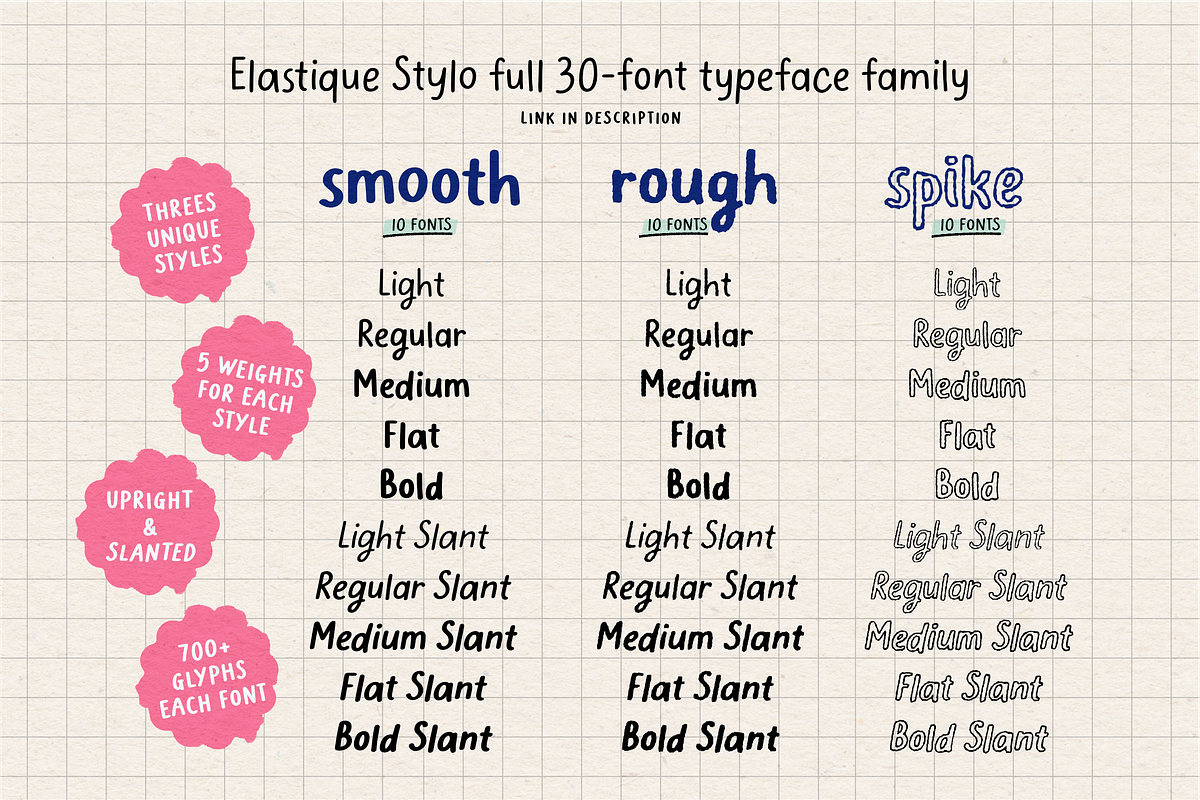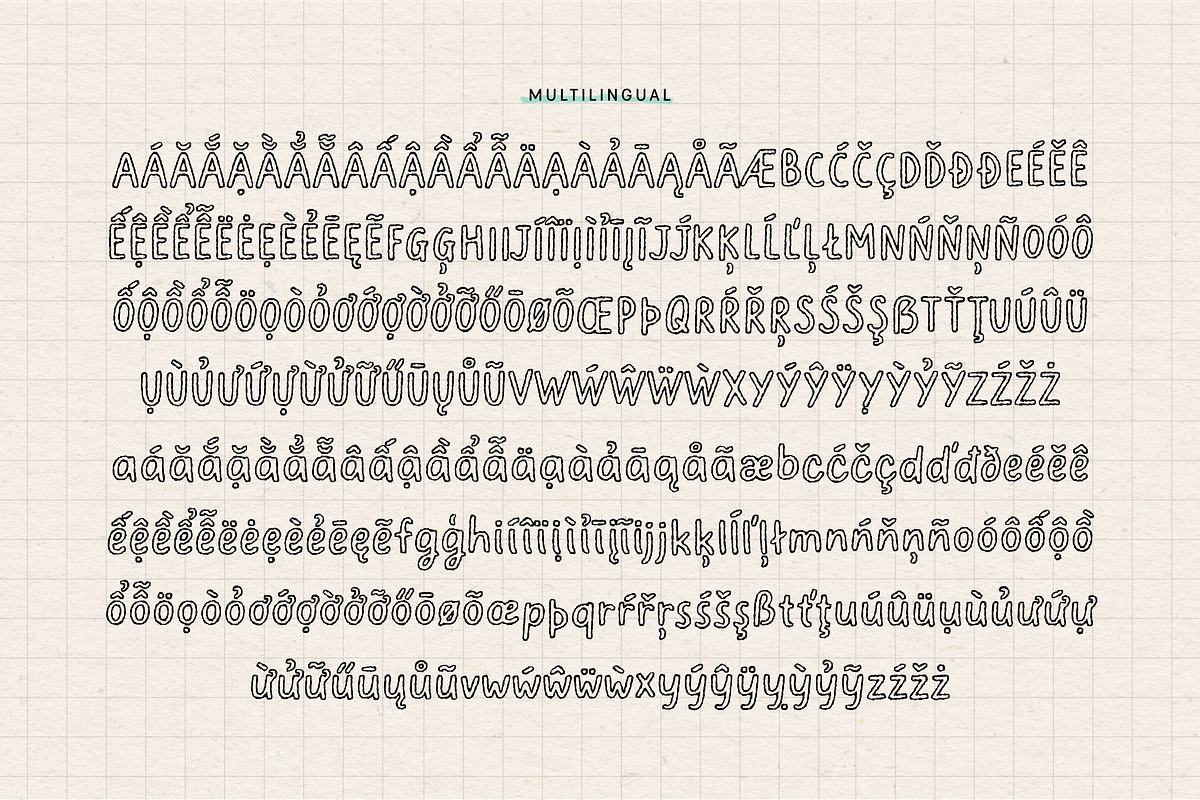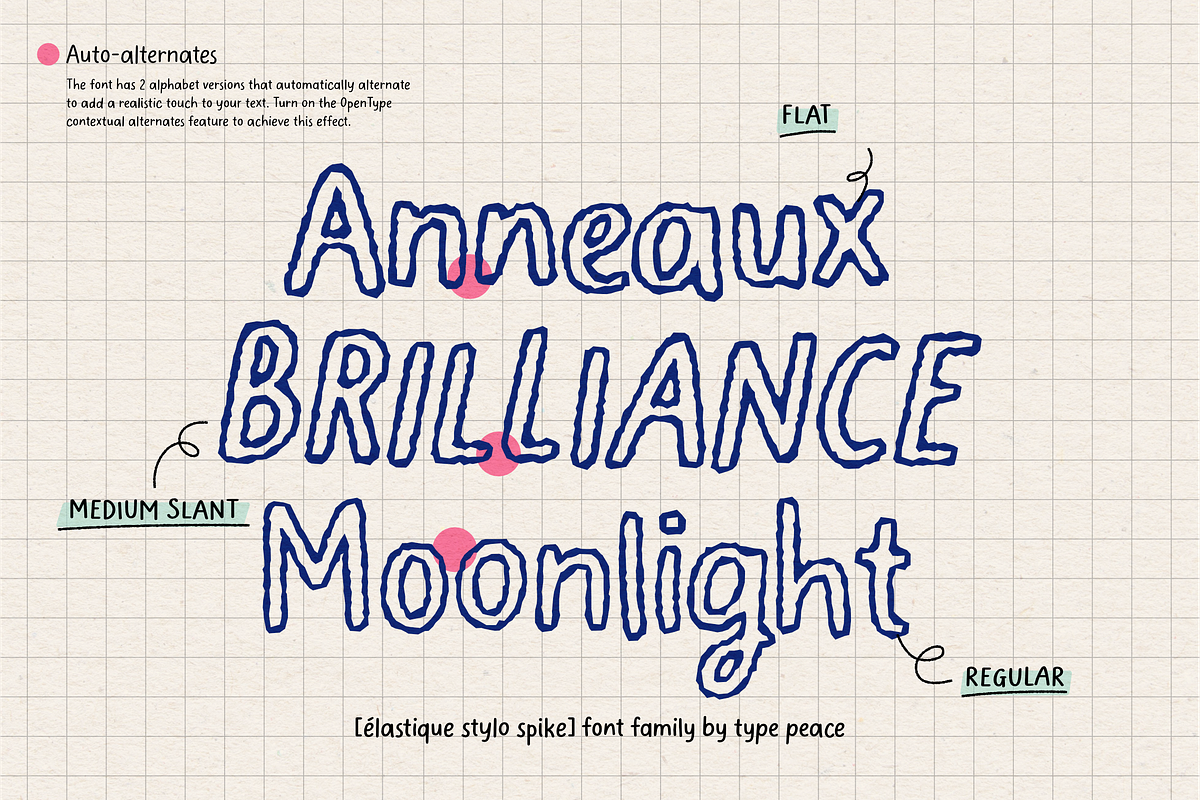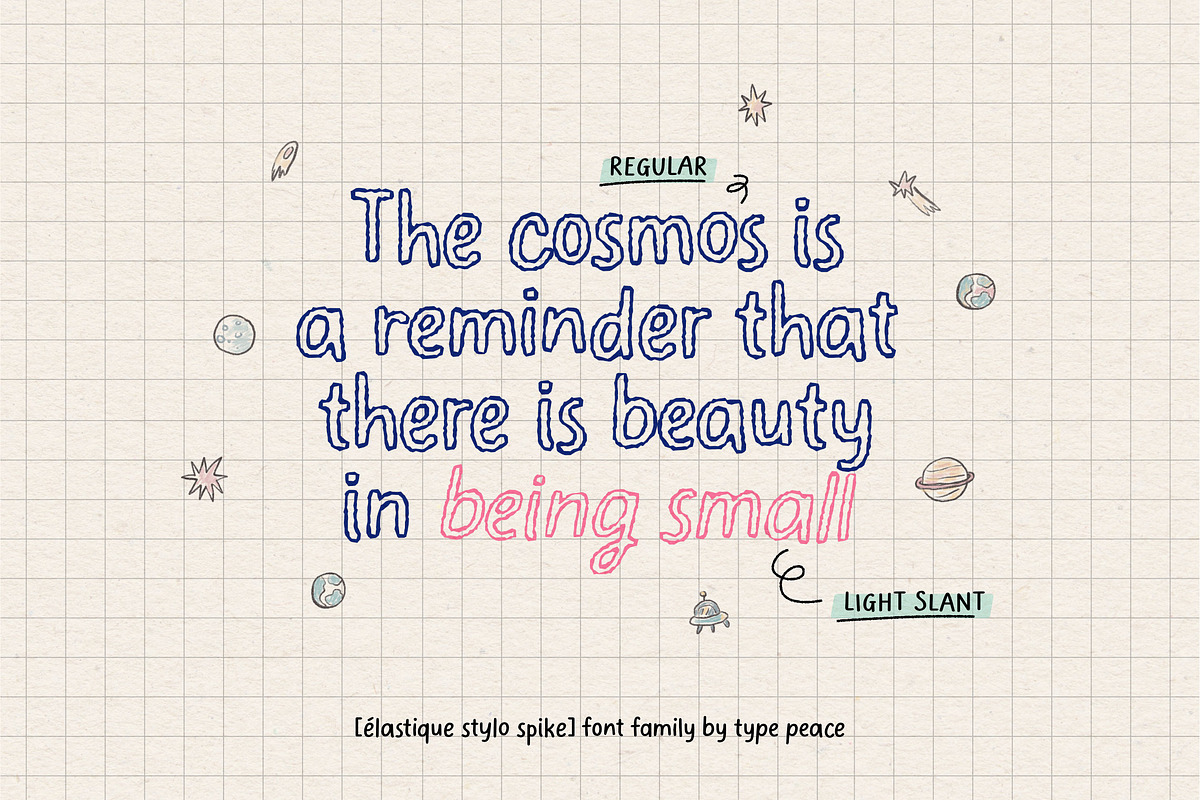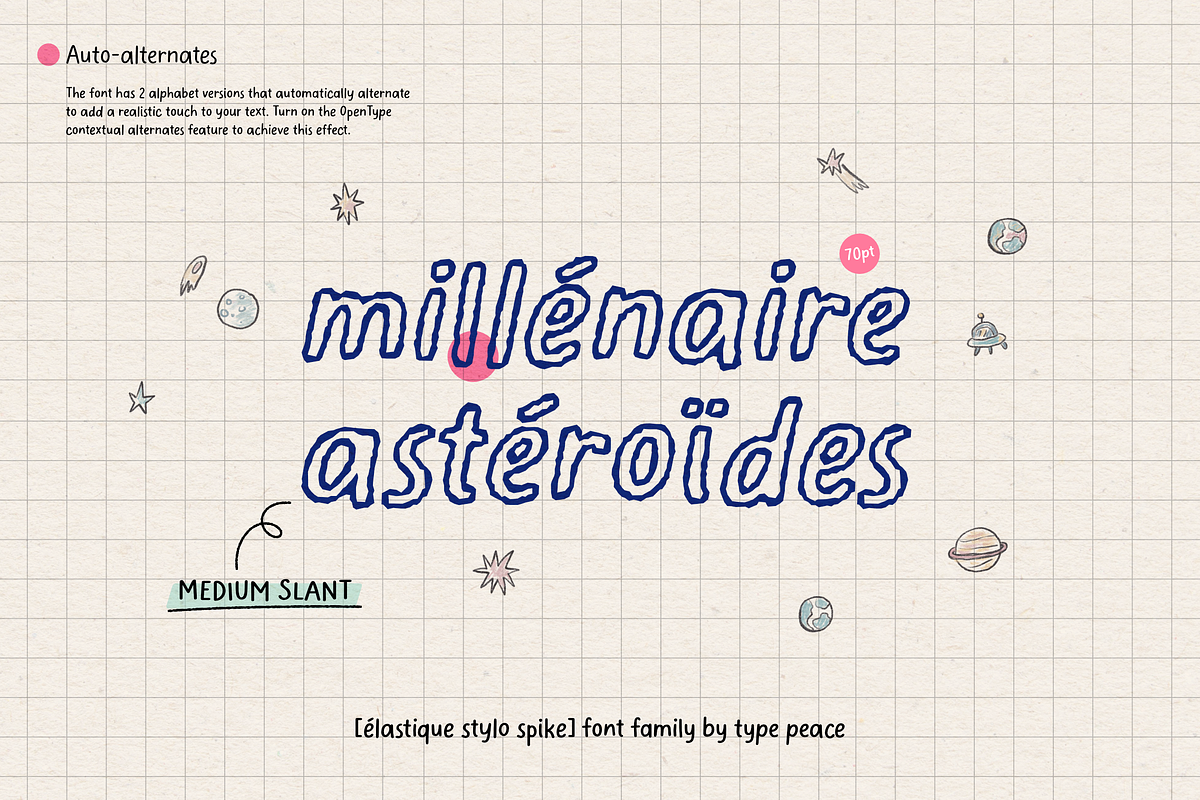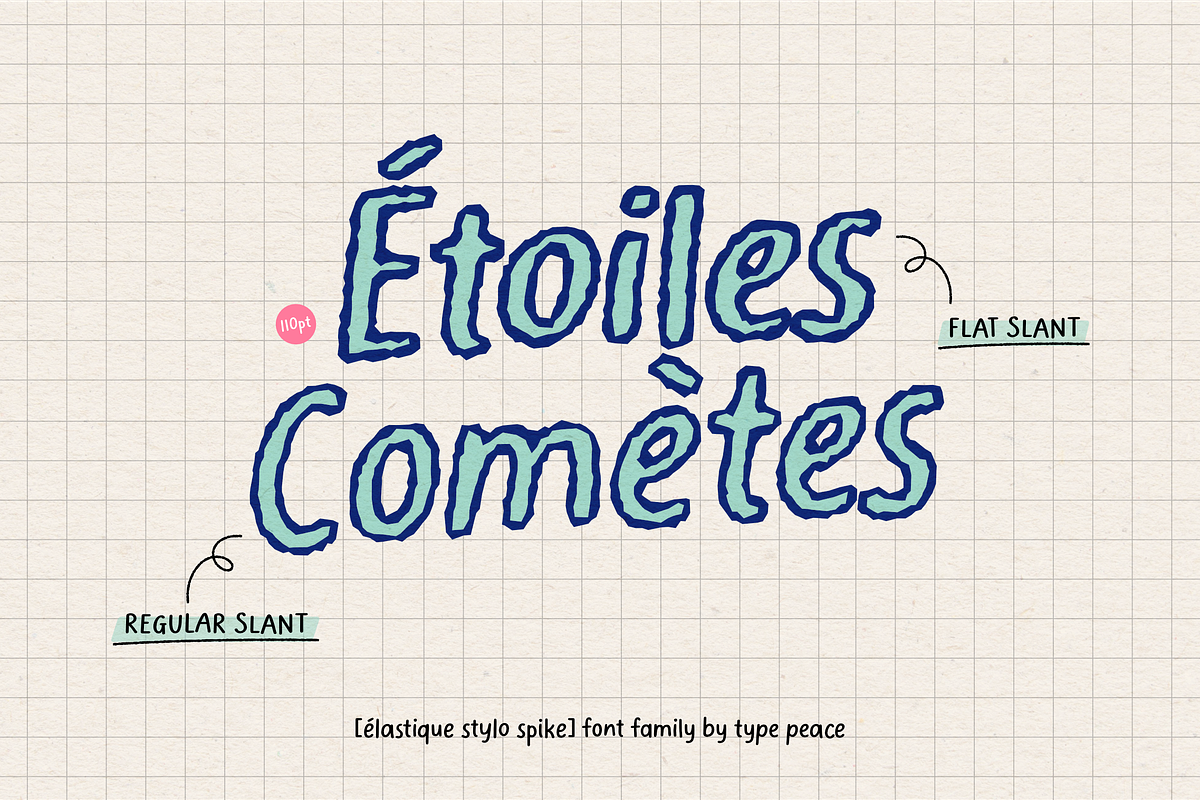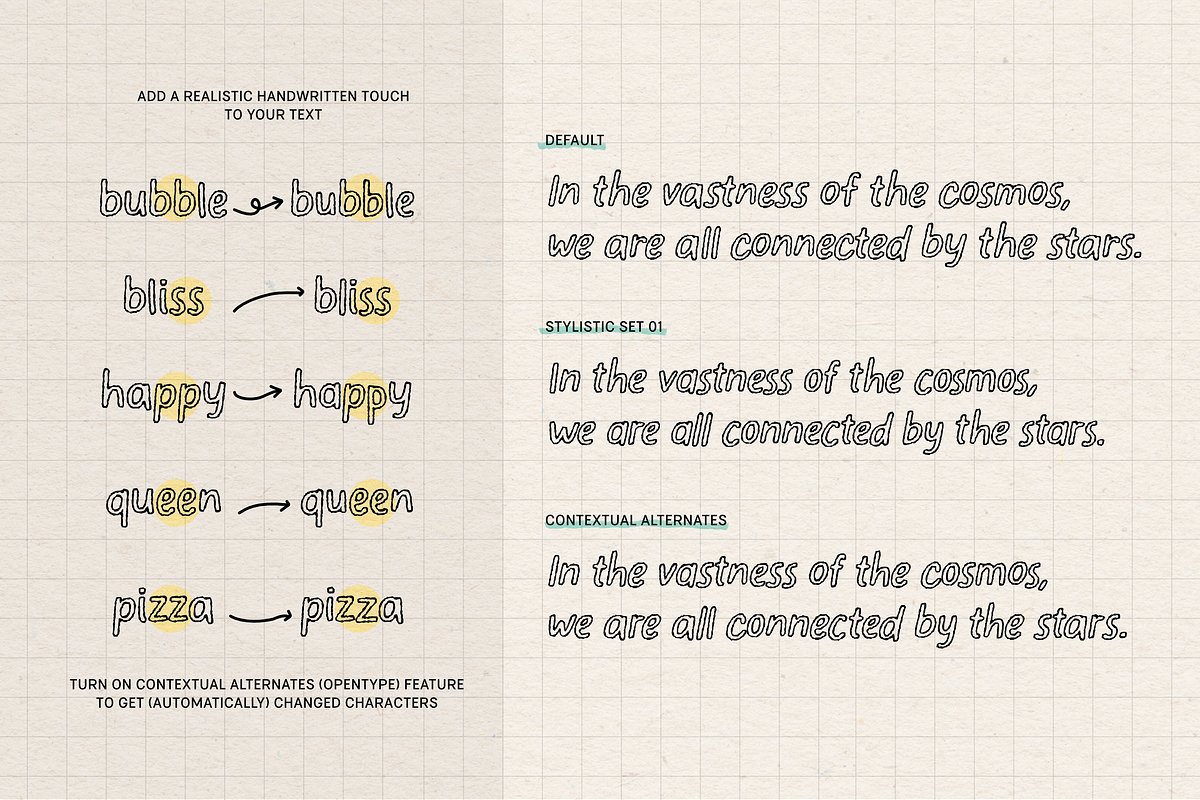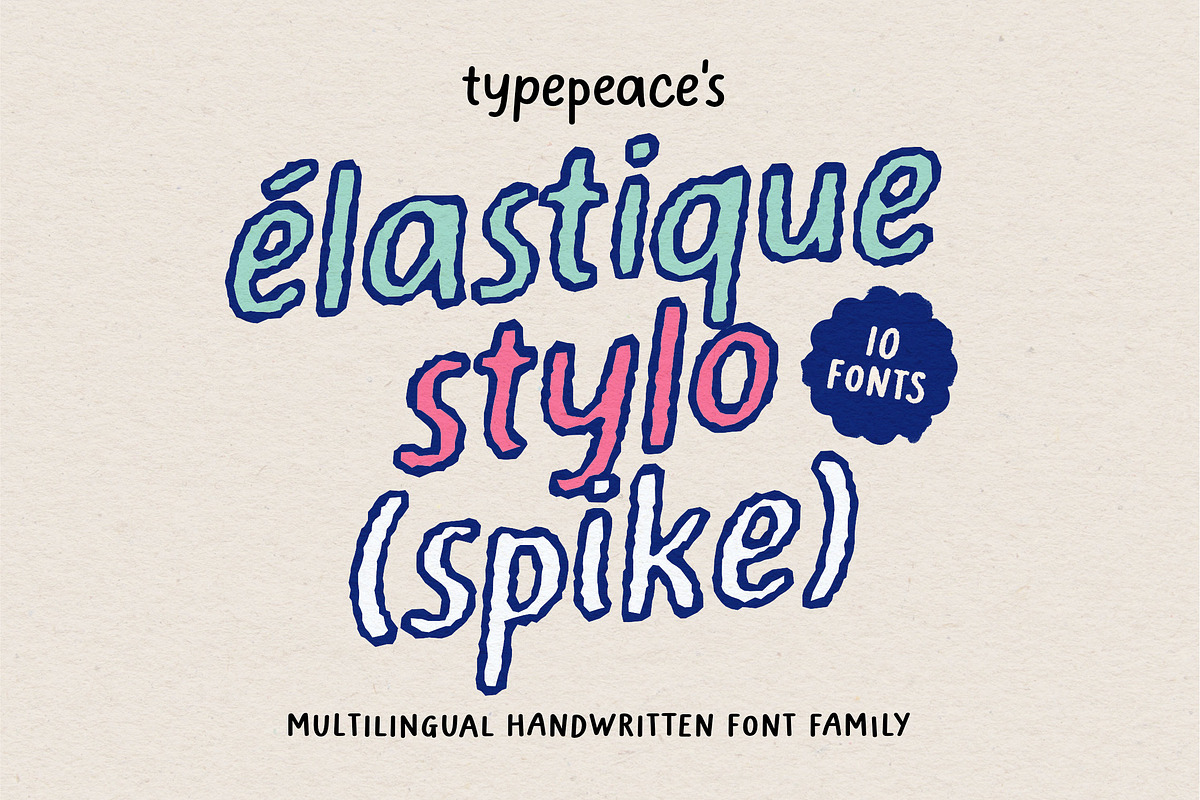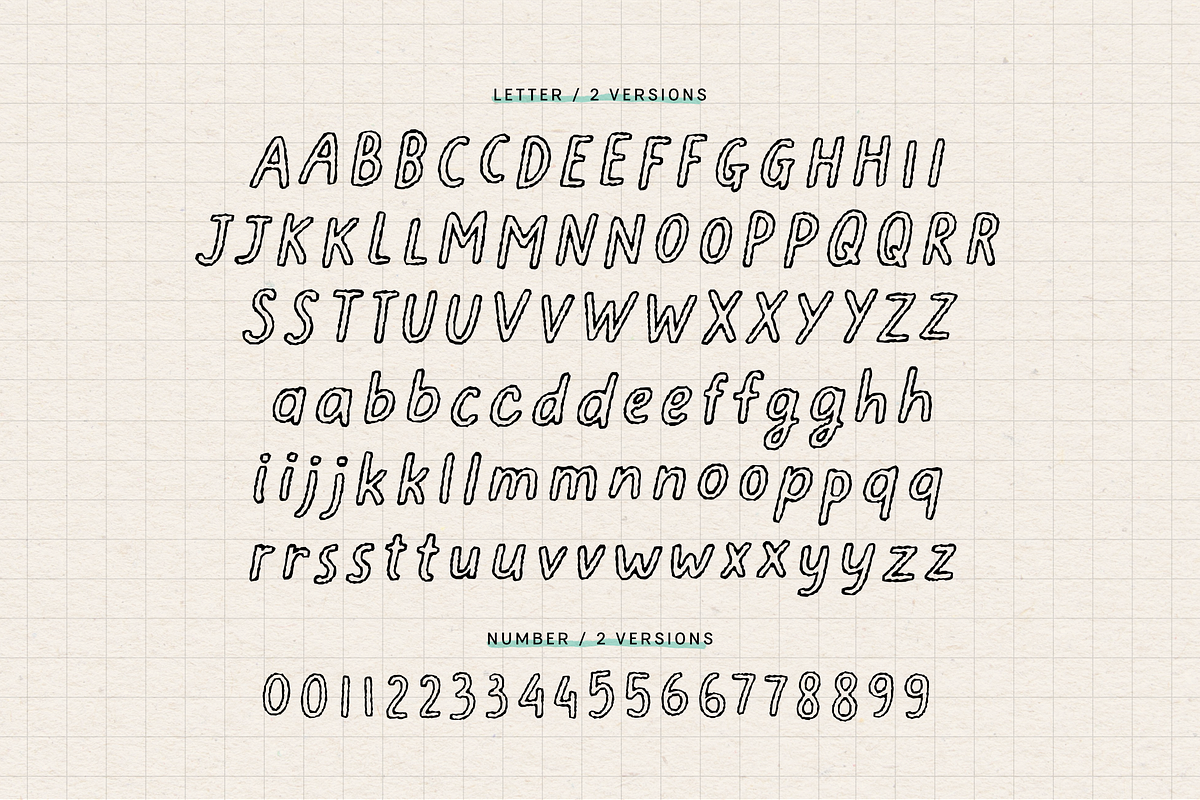
Elastique Stylo Spike - Outline Font
Elastique Stylo Spike, a rough-outlined sub-family of the Elastique Stylo Font Family, adds boldness and character to your designs. This 10-font sub-family is perfect for impactful projects like posters, album covers, and creative branding. With its raw yet artistic charm, Elastique Stylo Spike offers a unique look that stands out while maintaining versatility for various design needs.
Enable the OpenType Contextual Alternates feature to alternate between different letter versions, giving your text an authentic and realistic handwritten feel.
5 Weights - Upright & Slanted Fonts
- Light & Light Slant
- Regular & Regular Slant
- Medium & Medium Slant
- Flat & Flat Slant
- Bold & Bold Slant
Font features:
- 2 versions for each letter and number
- Punctuations and symbols with some alternates
- Opentype contextual alternates feature
Script: Latin
Supported Languages: English, Western European, Central European, Vietnamese